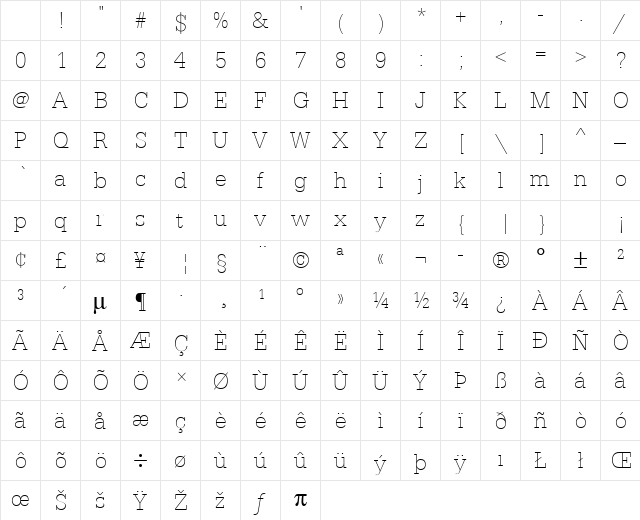
Complete URWEgyptienneTExtLigNar Regular glyph index. Displaying only characters natively supported by URWEgyptienneTExtLigNar Regular font.
URWEgyptienneTExtLigNar is a composed and adaptable typeface that performs quietly and consistently across a wide range of design contexts.